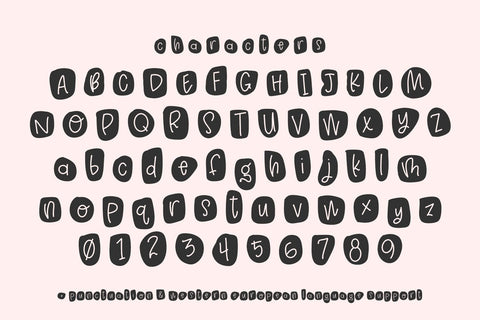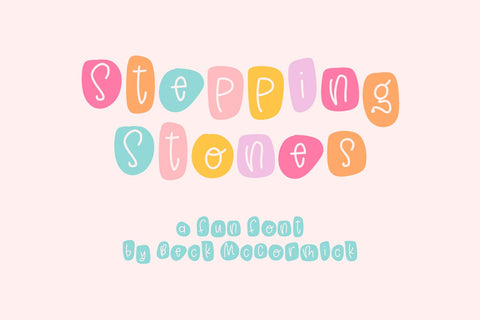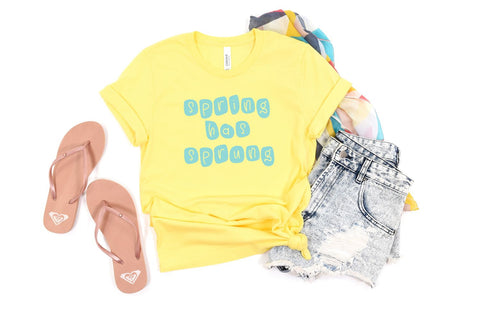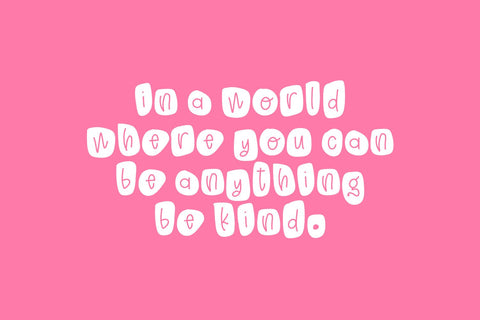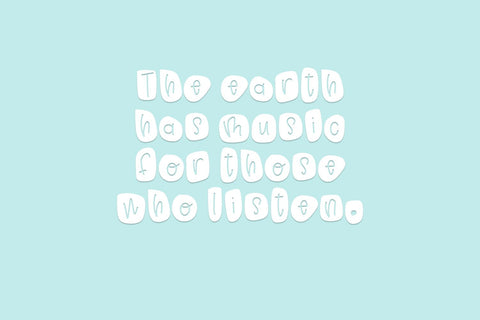
Stepping Stones Font
Introducing Stepping Stones, a playful sans font. Each character is enclosed in its own unique shape. Stepping Stones would be a great fit for whimsical crafting projects, shirt design, & more.
Stepping Stones includes:
- full upper + lowercase characters
- numbers + punctuation
- Western European language support - English, French, Spanish, Portuguese (Brazil), Portuguese (Portugal), Italian, German (Germany), German (Austria), Dutch, Danish, Swedish, Norwegian (Bokmål and Nynorsk), Finnish, Icelandic, Irish, Welsh